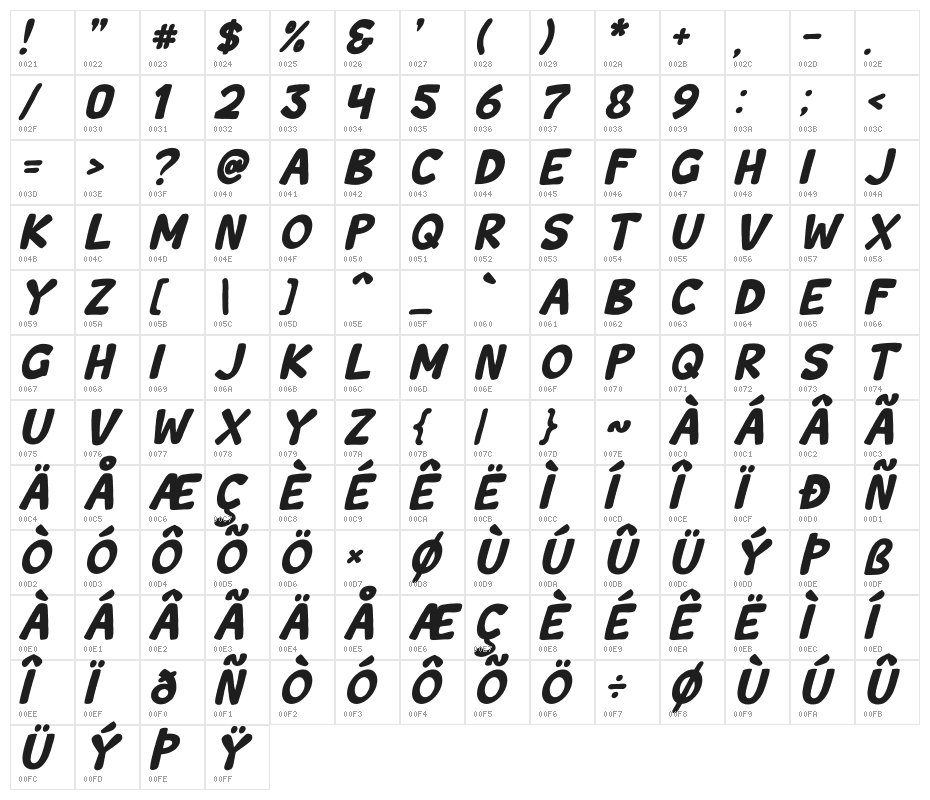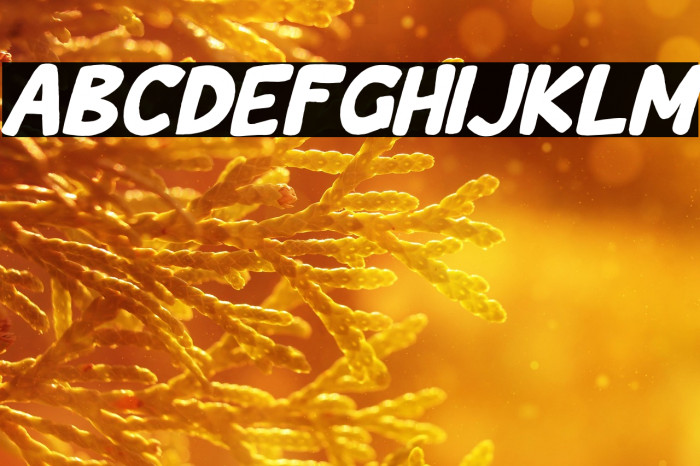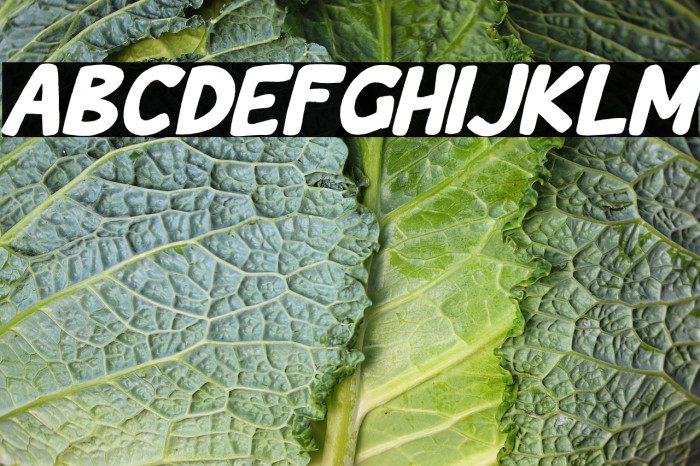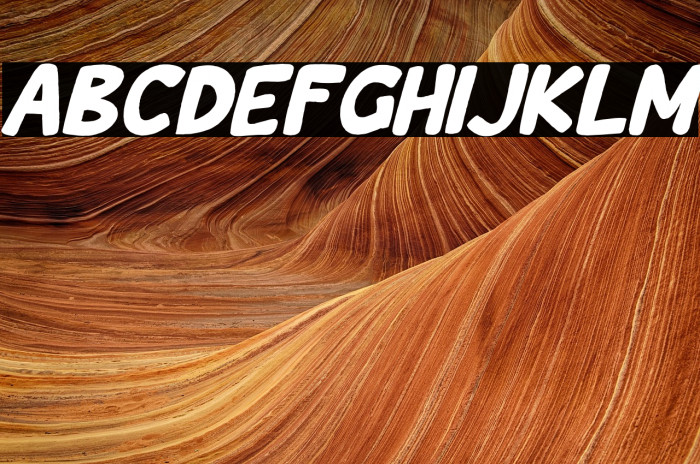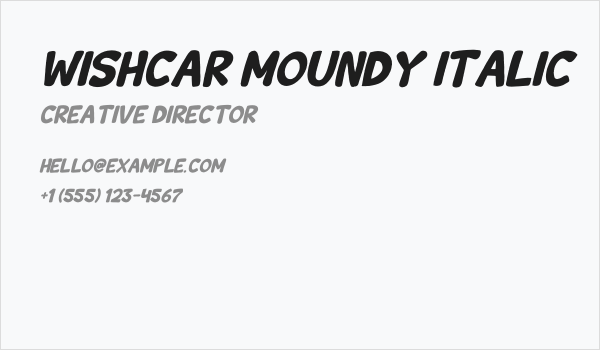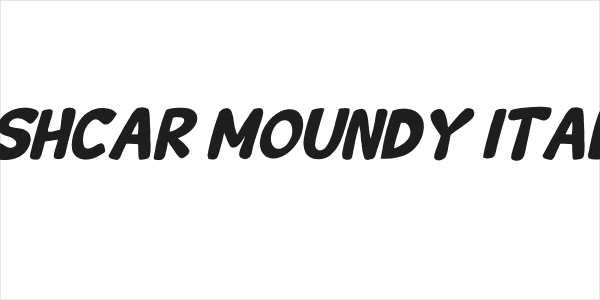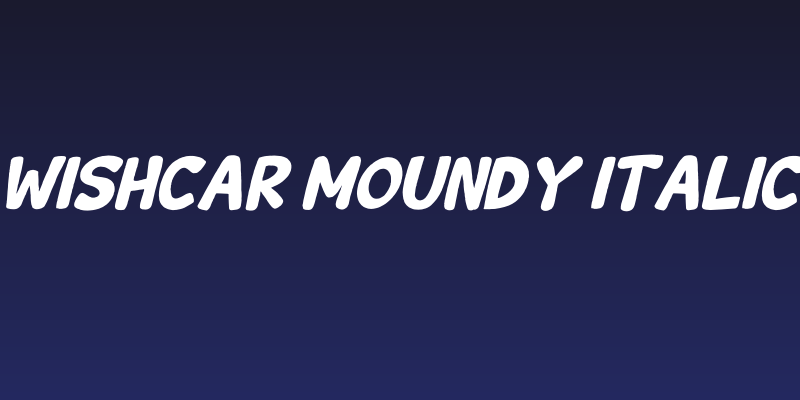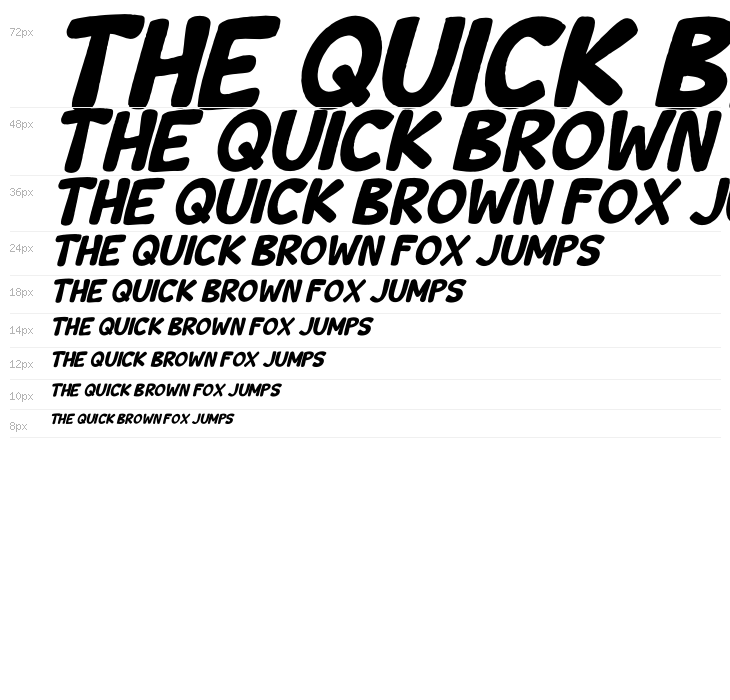
Wishcar Moundy Italic Font
Wishcar Moundy Italic Description
This font features a bold and dynamic style with a distinct italic slant, giving it a sense of movement and energy. The characters are rounded and full-bodied, providing a friendly and approachable appearance. The strokes are consistent in weight, contributing to a cohesive and uniform look across all characters. This font is highly legible, making it suitable for various design applications. The numbers and special characters maintain the same playful and robust style, ensuring a harmonious overall aesthetic.
| Proposed Projects | Ideal for branding projects, posters, and headlines that require a bold and energetic touch. |